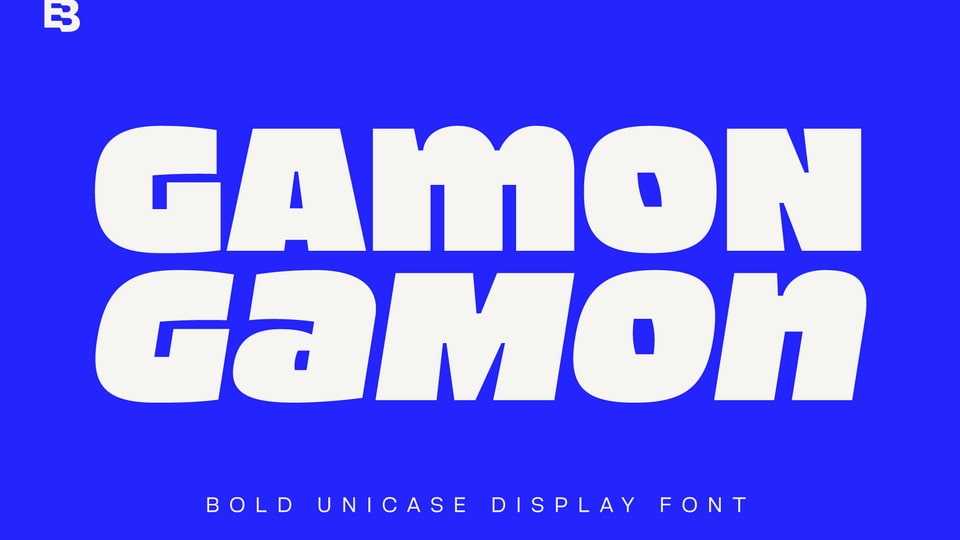
Download Gamon font, a bold display typeface with a distinct modern and edgy personality. Gamon font is ideal for designers seeking a contemporary and unique aesthetic.